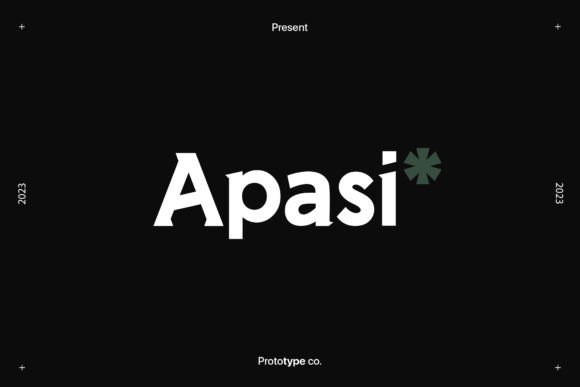
Behold Apasi Font, the master of intrigue and elegance, a display typeface designed to ensnare your senses and elevate your designs. Crafted by the visionary Ryan Vierra, Apasi is a captivating creation that commands attention, leaving an unforgettable impression wherever it graces.
With clean lines and smooth curves, Apasi exudes an innate sense of sophistication. Its every letterform is meticulously crafted, showcasing a harmonious blend of modernity and classicism. Let your imagination run wild as you explore its versatile nature, finding endless possibilities to unleash your creativity.
Step into the realm of design possibilities with Apasi, where headings, logos, branding, magazines, product packaging, and invitations come alive with unparalleled charisma. Witness the transformation as ordinary text morphs into extraordinary statements, each character carrying the weight of impact and distinction.
Unleash your inner artist and let Apasi ignite the passion within. Its versatility knows no bounds, allowing you to weave captivating tales through every word you type. Whether you seek to create an unforgettable logo that leaves a lasting impression or craft an invitation that exudes exclusivity, Apasi is your trusted companion.
As you journey through the world of typography, let Apasi be your guide. Its enchanting allure will draw eyes and hearts alike, leaving an indelible mark on all who encounter it. Embrace the power of Apasi, and unveil a world of captivating designs that transcend the ordinary.